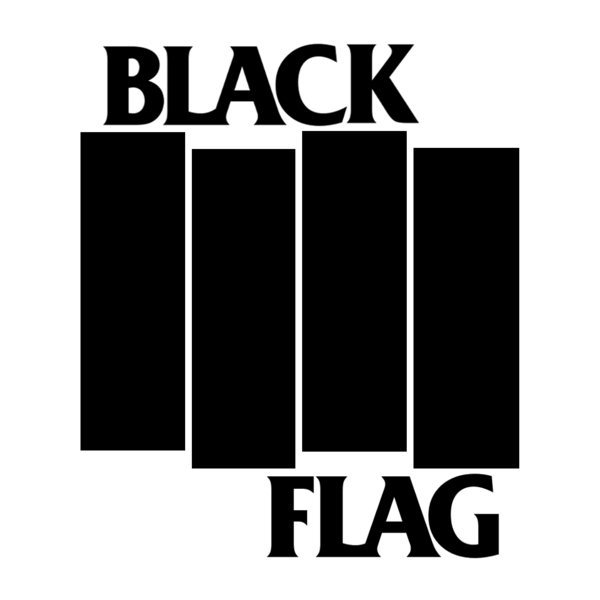
Black Flag Font
ElectronicBlack Flag was an American punk rock band formed in 1976, known for its aggressive, influential sound and politically charged lyrics. The iconic logo of the band, created by Raymond Pettibon, depicts a sleek black flag with four black bars, the name of the band is displayed both above and below it.
The lettering for the band name is similar to the commercially available Friz Quadrata Bold, designed by Ernst Friz. You can purchase and download this font here.